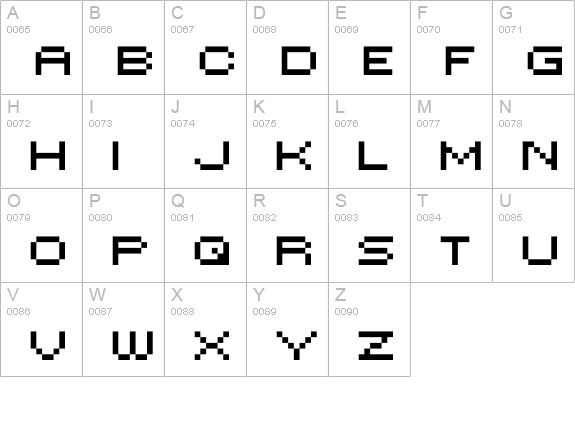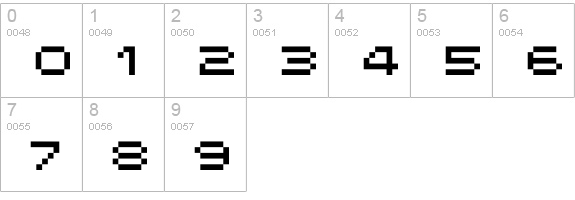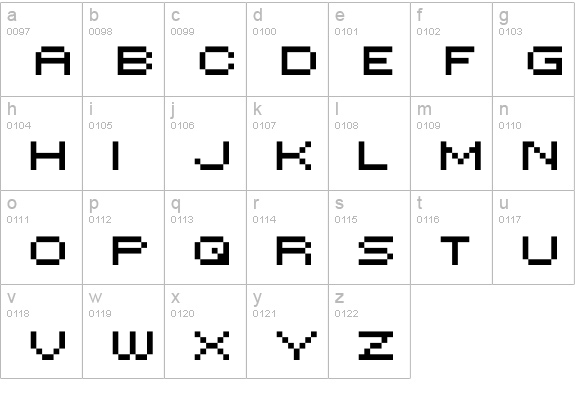
MINI 7 Extended Font Details
MINI 7 Extended is a distinctive, extended-width variant in the MINI typeface family \xE2\x80\x94 well suited to design and typography projects.
MINI 7 Extended font is a modern and stylish typeface that exudes a sense of sophistication and elegance. With its sleek lines and unique design, this font is perfect for a variety of design projects, from branding to editorial design. The MINI 7 Extended font is versatile and eye-catching, making it a great choice for both digital and print applications. Best of all, the MINI 7 Extended font is free to download at FontsMarket.com. This means that you can easily access this stunning font for your projects without any cost. Don't miss out on the opportunity to enhance your designs with the MINI 7 Extended font - download it today and see the difference it can make!